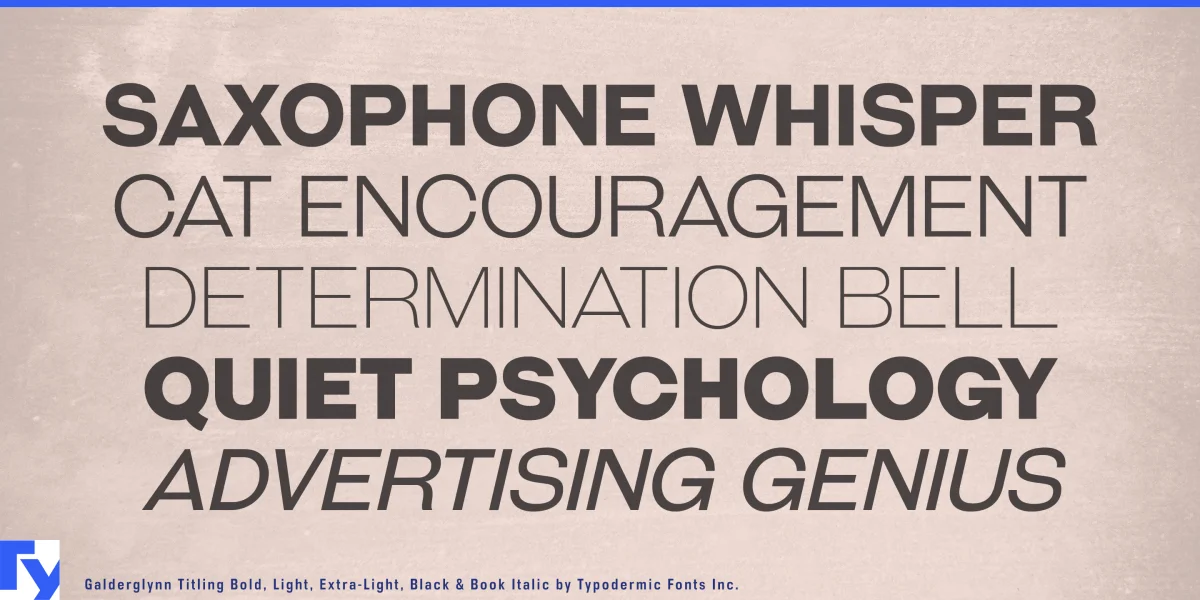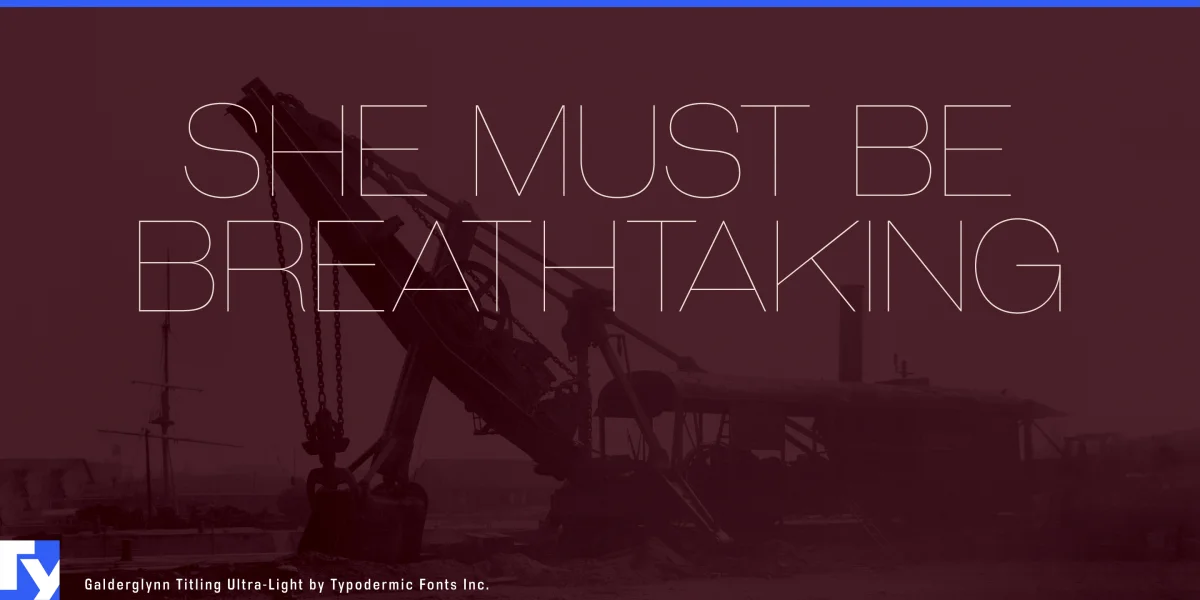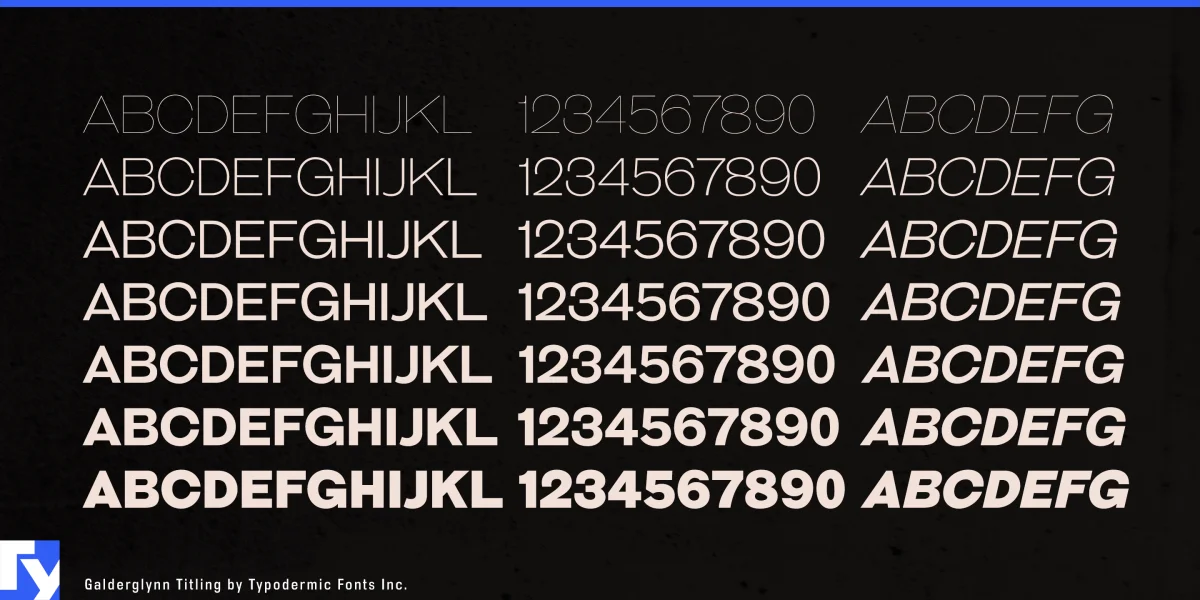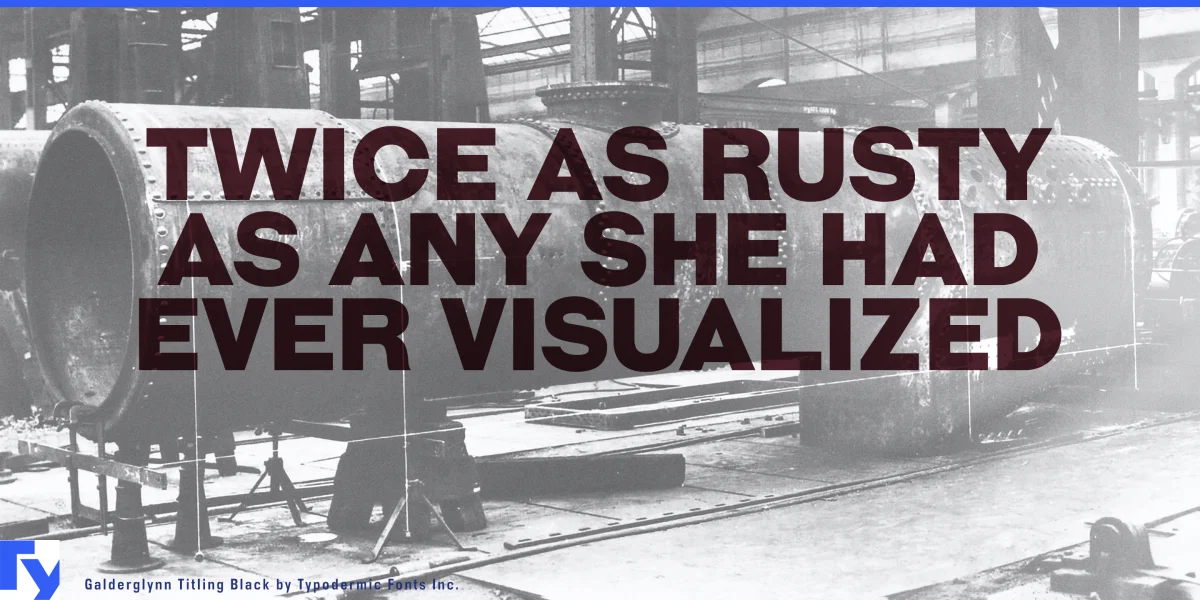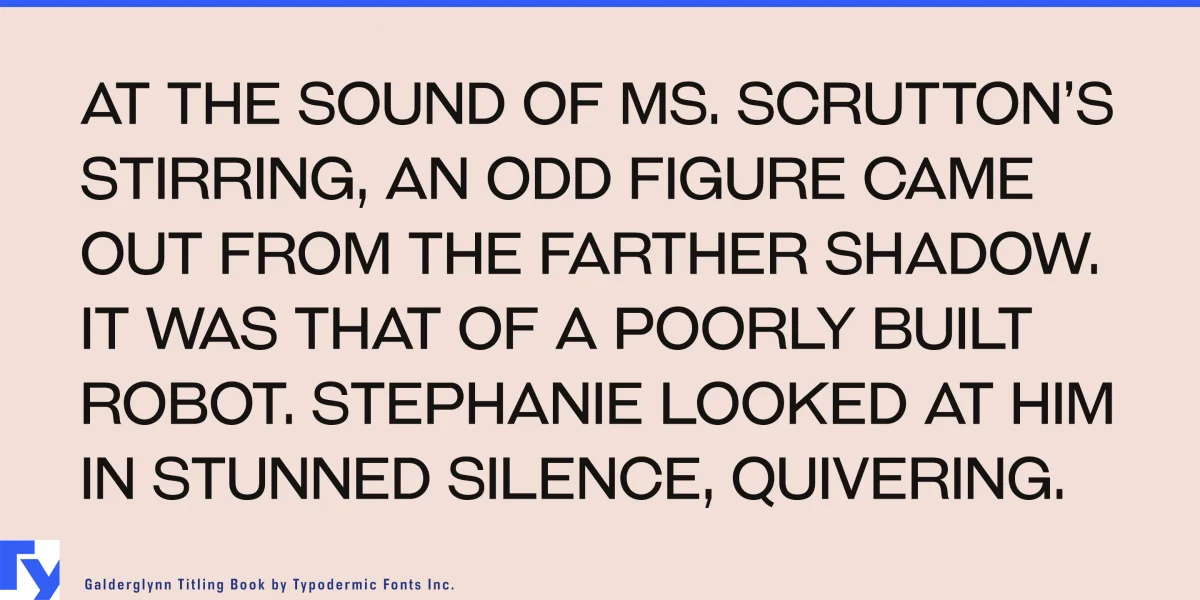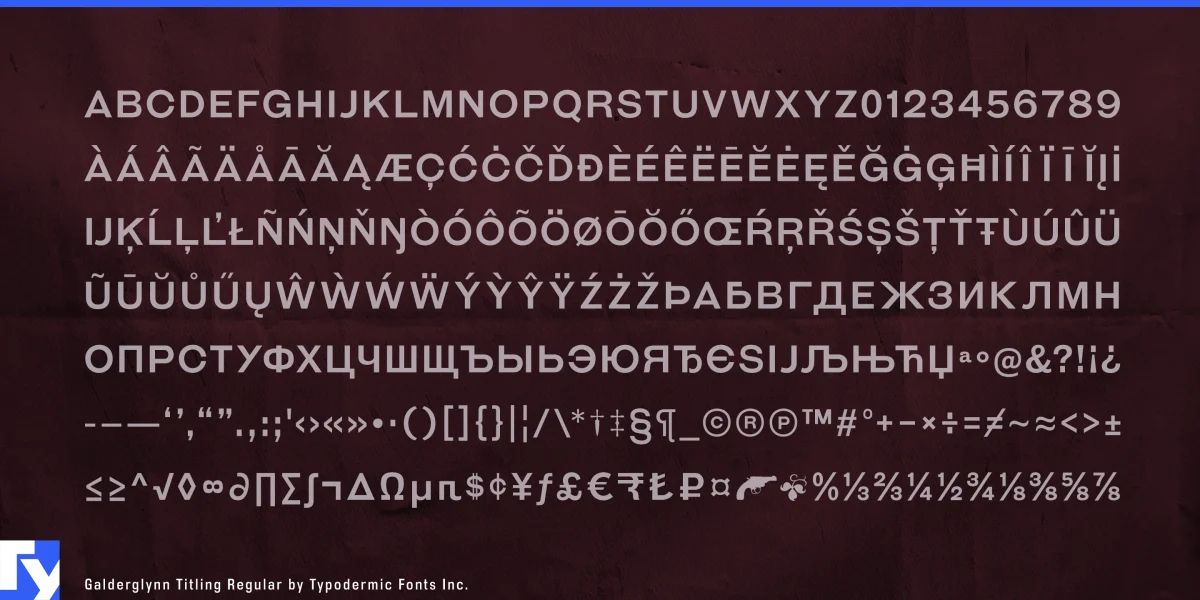
Step into the captivating world of Galderglynn Titling, an all-caps typeface that channels the spirited essence of 19th-century sans-serifs with a modern twist. This isn’t your average historical revival—it’s a bold celebration of typographic heritage that dances to its own beat.
Galderglynn Titling embraces delightful inconsistencies, with each character exuding its own personality. It’s as if the letters have come alive, jiving across the page with infectious energy. This typeface is tailor-made for designers who want to infuse their work with a touch of whimsy and historical charm. Versatility is Galderglynn Titling’s middle name. With a smorgasbord of numeral styles—standard, monospaced, old-style, inferior, and superior—it’s ready to tackle any typographic challenge you throw its way. The seven weights offer a playground of possibilities for designers who dare to think differently.
This typeface doesn’t just cross linguistic borders—it leaps over them with gusto. Supporting an impressive array of Latin-based European and some Cyrillic-based writing systems, Galderglynn Titling ensures your message maintains its quirky charm whether you’re writing in Albanian or Zulu. What sets Galderglynn Titling apart is its free commercial use desktop license, making it an accessible choice for a wide range of projects. For those needing expanded functionality like web or app embedding, or seeking lowercase letters, the full Galderglynn Esquire family is available from Typodermic Fonts.
Choose Galderglynn Titling when you need typography that doesn’t just speak—it shouts with joy and character. It’s perfect for headlines, logos, and anywhere you want to make a bold, historical statement with a modern flair. And if you ever need to rein in its exuberance, its well-behaved sibling, Galderglynn 1884, is just a click away. Inject some joyful irreverence into your designs and let your typography tell a story all its own.